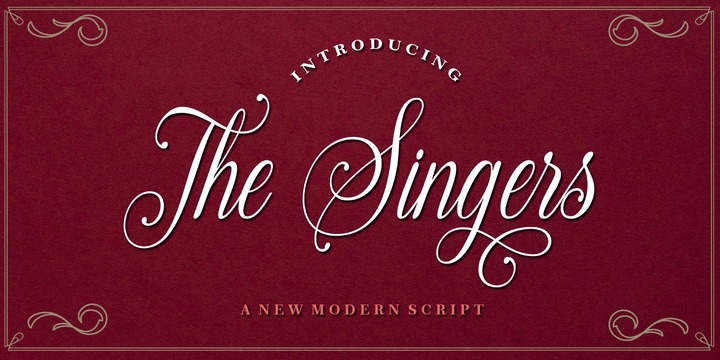
The Singers Font
The Singers Font is ideal for music venue branding, vocal performance promotions, recording studio signage, singer-songwriter album covers, music academy materials, concert hall displays, vocal coaching services, karaoke bar decorations, music festival posters, and artist showcase presentations. This melodic typeface brings vocal artistry and musical performance to any music-focused design project.
The Singers Font is exciting because it captures the passionate expression and emotional power of vocal performance, featuring dynamic letterforms that seem to resonate with musical energy and convey the soul-stirring beauty of human voice in song. Its melodic character instantly evokes the transformative power of vocal music and the deep emotional connection between singer and audience.
The Singers Font family includes Light, Regular, Medium, and Bold weights with musical alternates, vocal flourishes, performance ornamental elements, and singing symbols that enhance the musical aesthetic, providing music designers with harmonious tools for creating typography that celebrates the artistry and emotional impact of vocal performance.
Music industry designers appreciate The Singers Font for its exceptional ability to convey vocal artistry and musical emotion through carefully crafted letterforms. The font's melodic character and performance details create immediate associations with live concerts, emotional ballads, and the magical moments when a singer's voice touches hearts and transforms lives through the universal language of music.
The design philosophy behind The Singers Font celebrates the ancient art of vocal music and the profound human need for musical expression that connects souls across cultures and generations, making it particularly effective for music venues, vocal training programs, and entertainment brands that understand music's power to heal, inspire, and unite. Performance teams working on vocal projects find this font essential.
Whether used for concert venues, vocal academies, or singer-songwriter promotions, The Singers Font delivers the perfect combination of musical authenticity and vocal artistry. Its melodic appeal and performance passion make it an indispensable choice for brands that celebrate the transformative power of singing, vocal excellence, and the beautiful art of musical expression through the human voice.